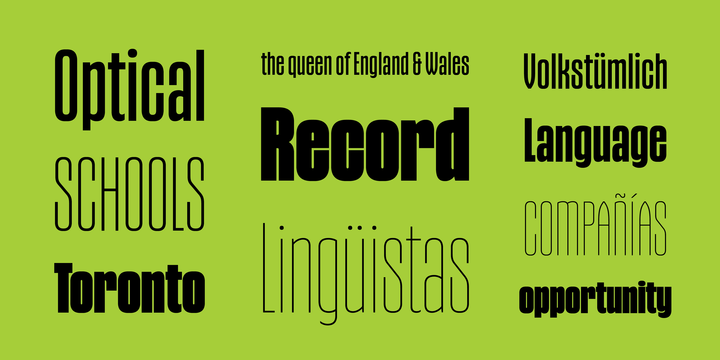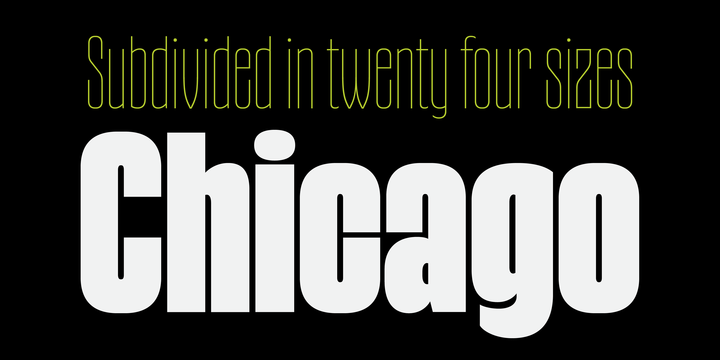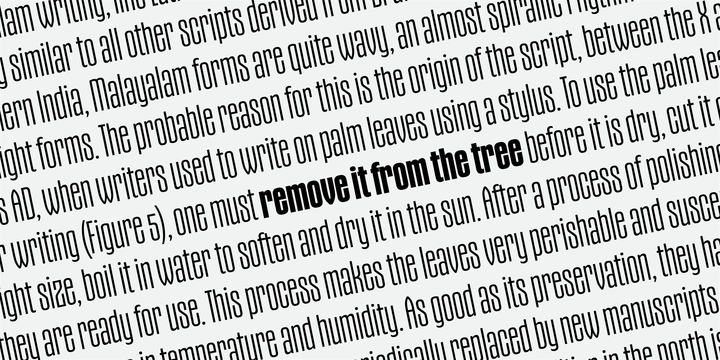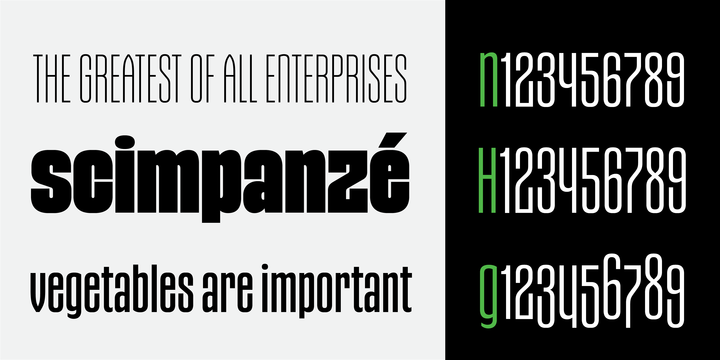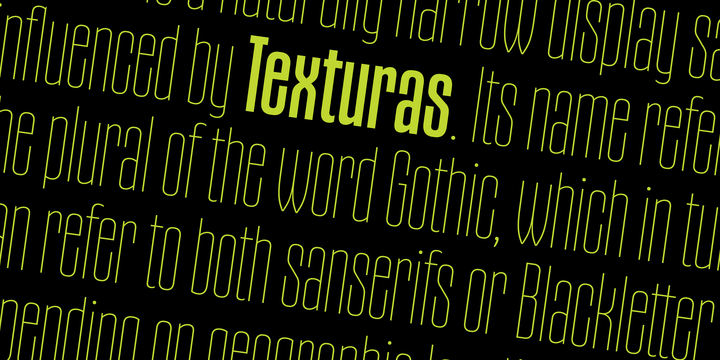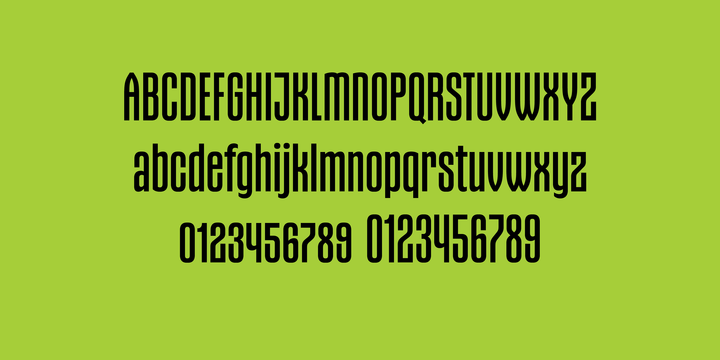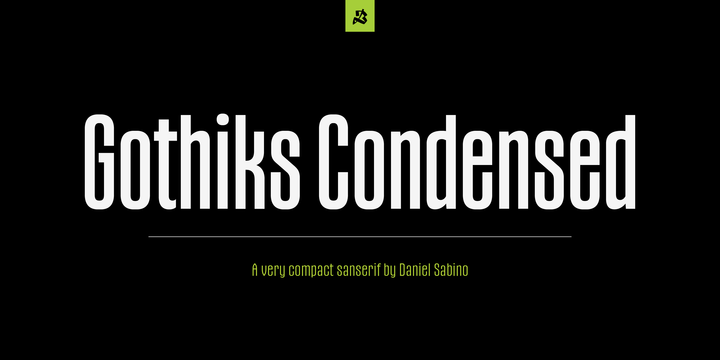
Gothiks Condensed Font Family
This is the condensed version of Gothiks, a 6-weight display sanserif influenced by Texturas. It is ideal for everything big, compact and powerful. This family has an extensive character set — with extensive language support — and many OpenType features like fractions, small capitals and different figure sets. Default figures align with lowercase.